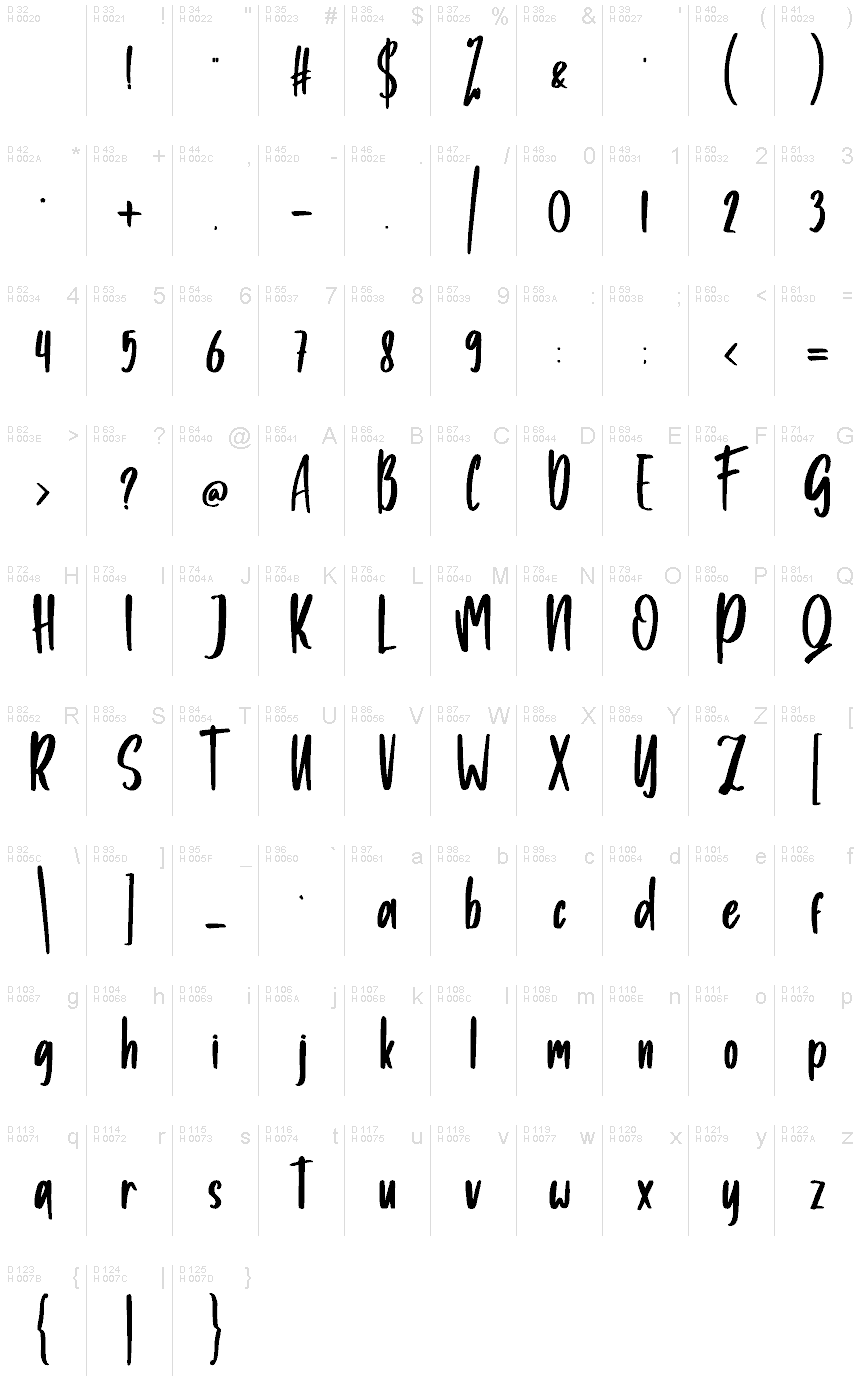
Sphones
Sphones, a free hand-lettered font from Skiiller Studio, is available for personal use only.
The font itself is condensed and features a vintage retro vibe. It’s perfect for labels and packaging, logotypes, posters, magazine titles, and branding designs.
Sphones is also an excellent choice for body text, subtitles, and handwritten designs where a sense of authenticity and class needs to be emphasized.